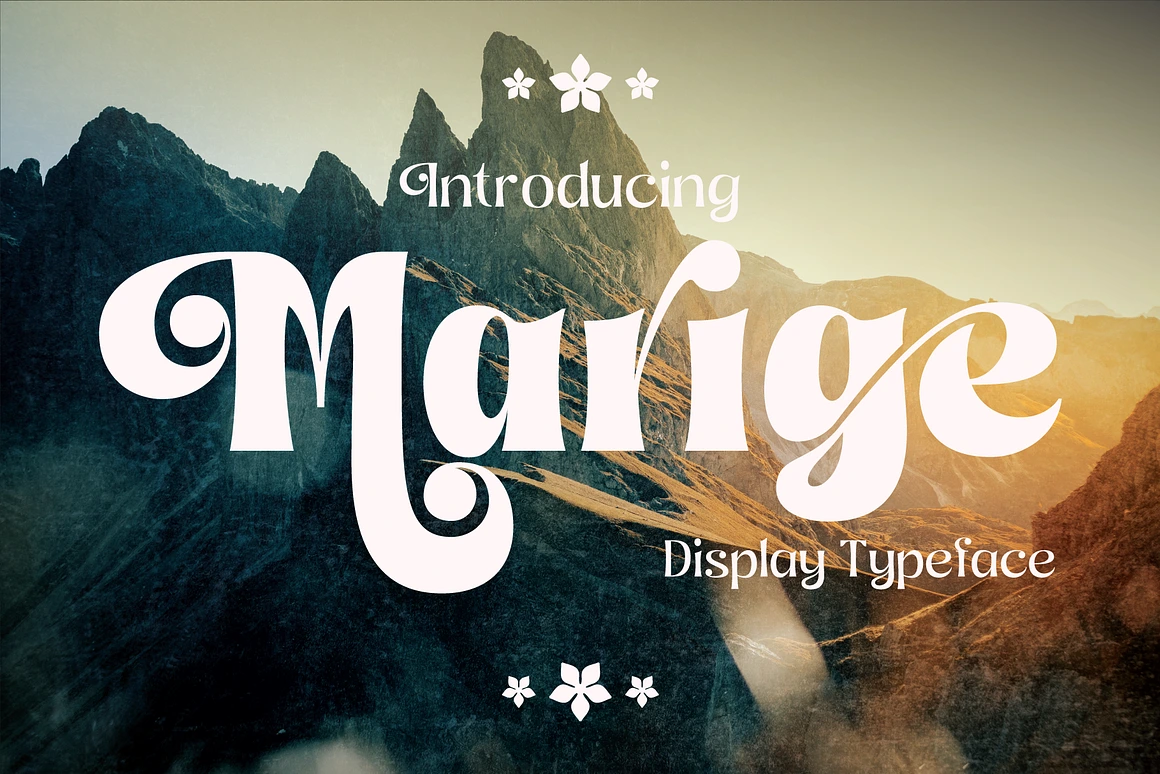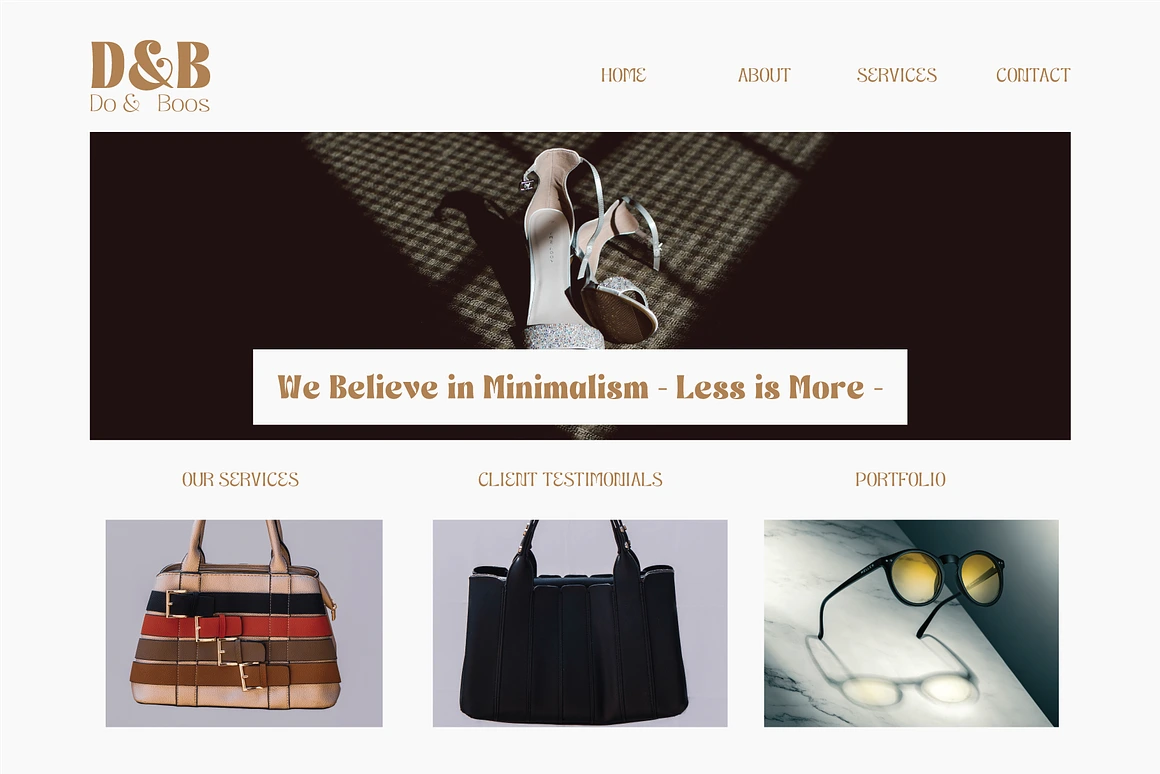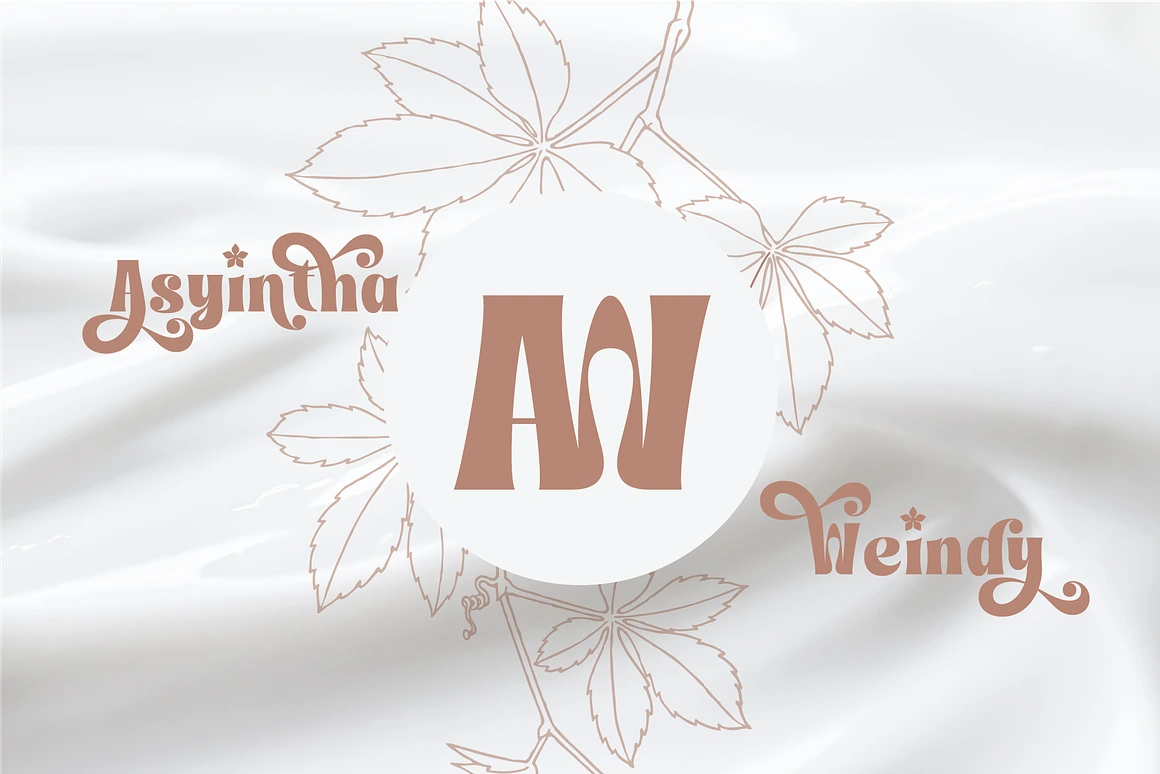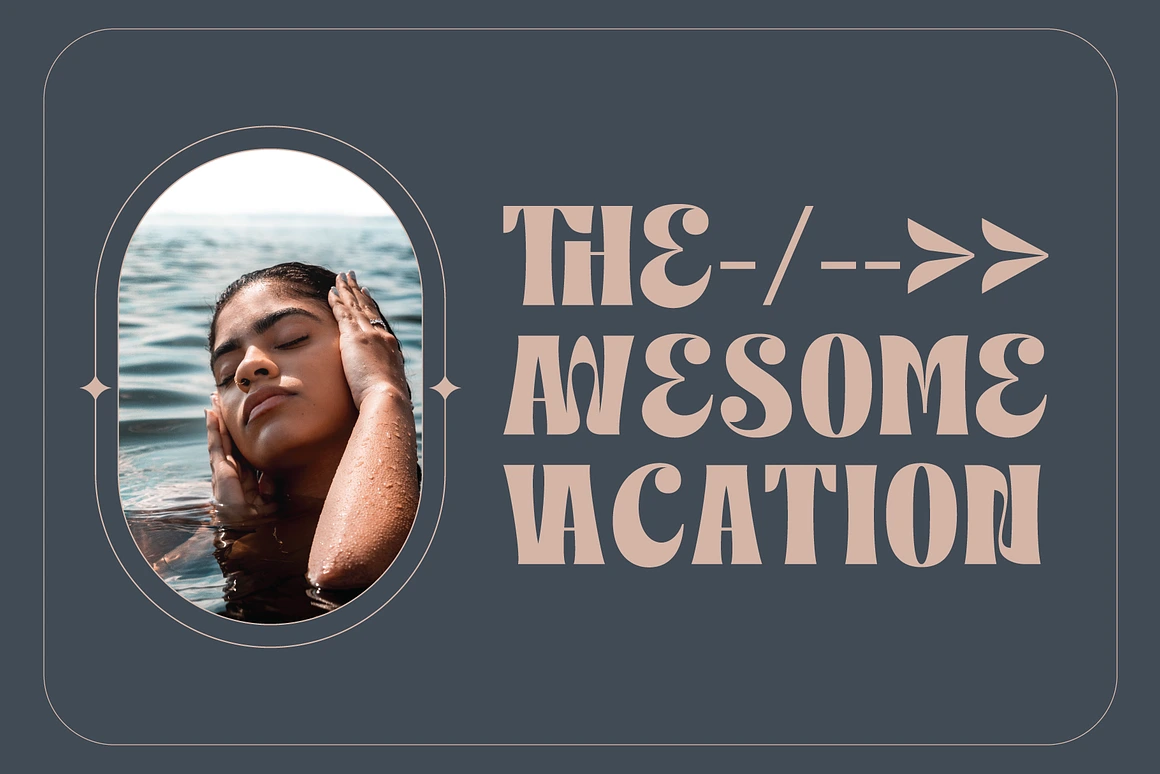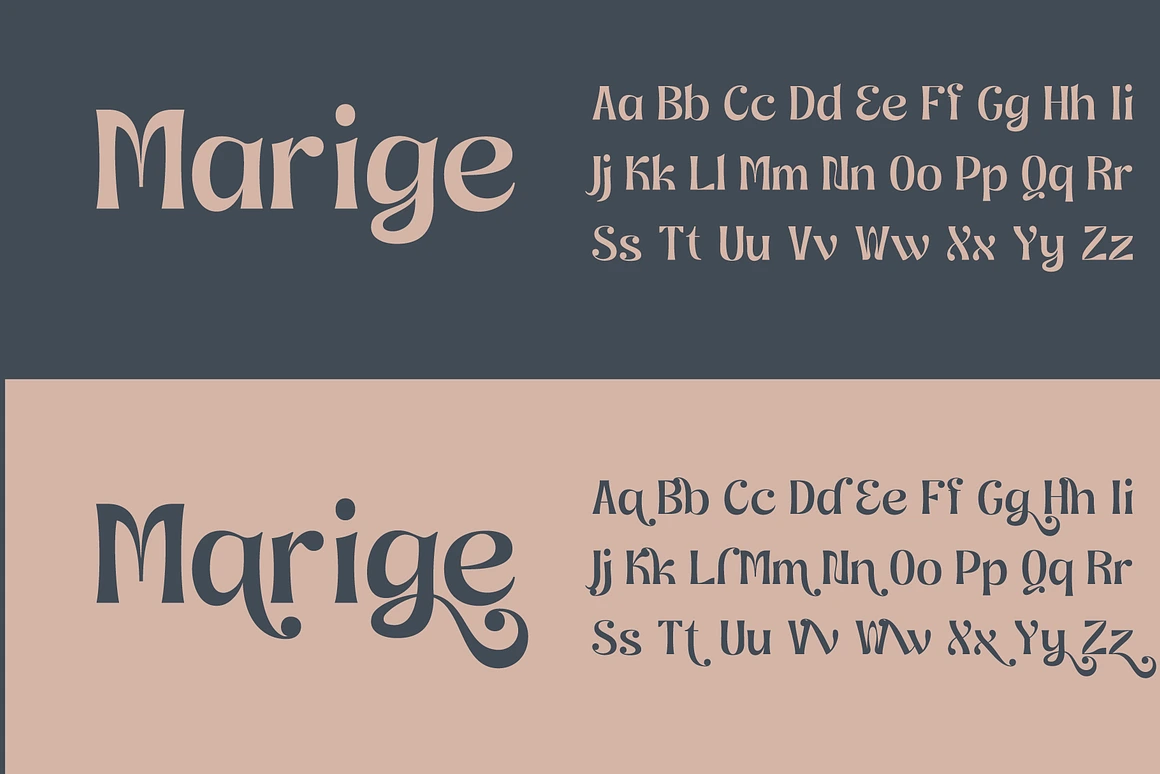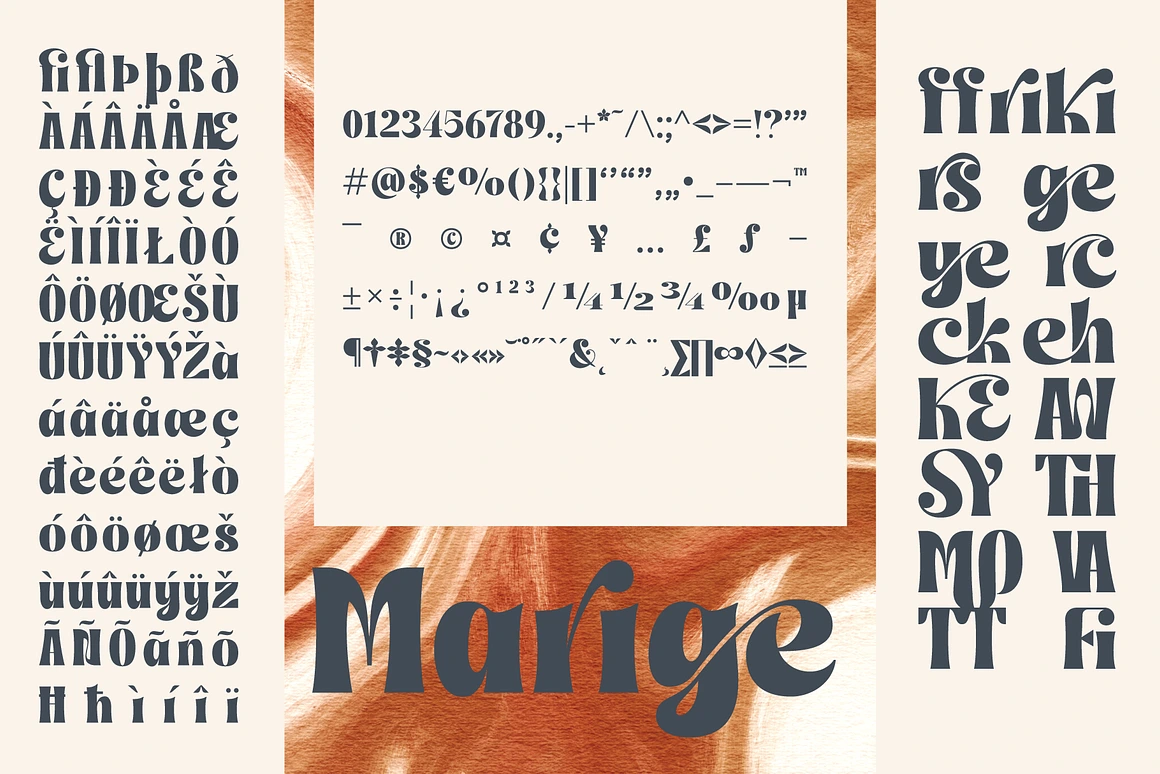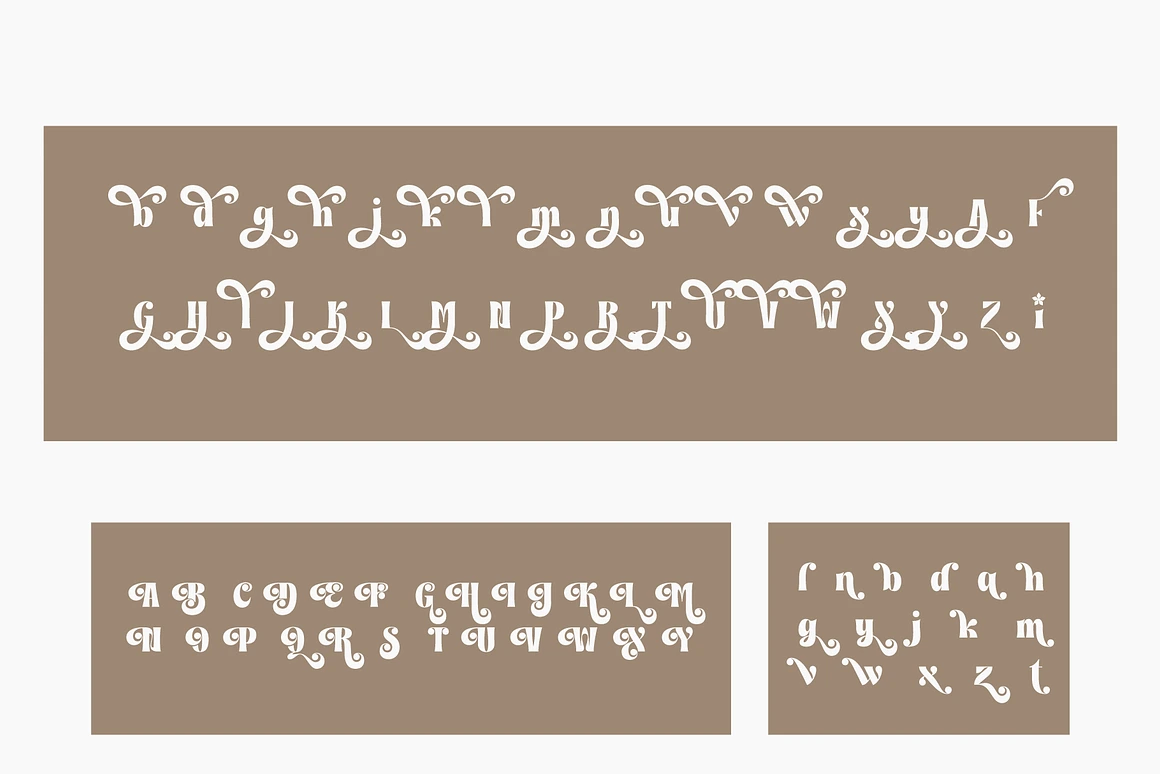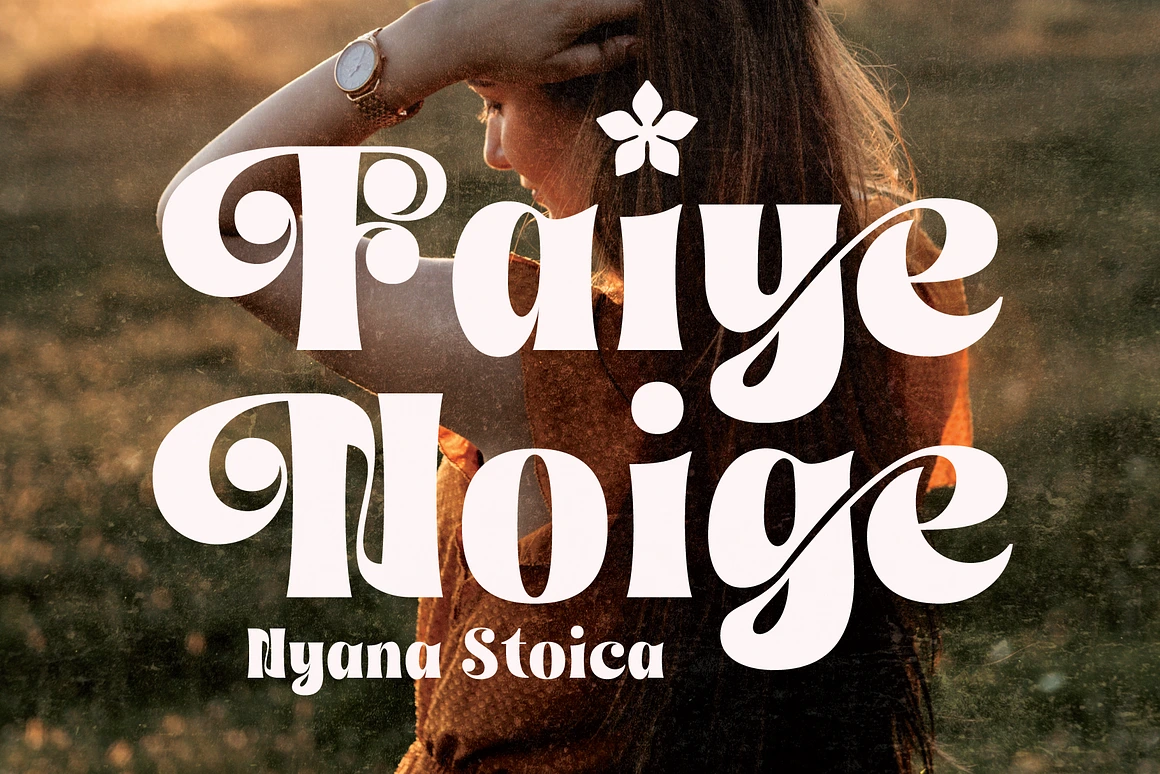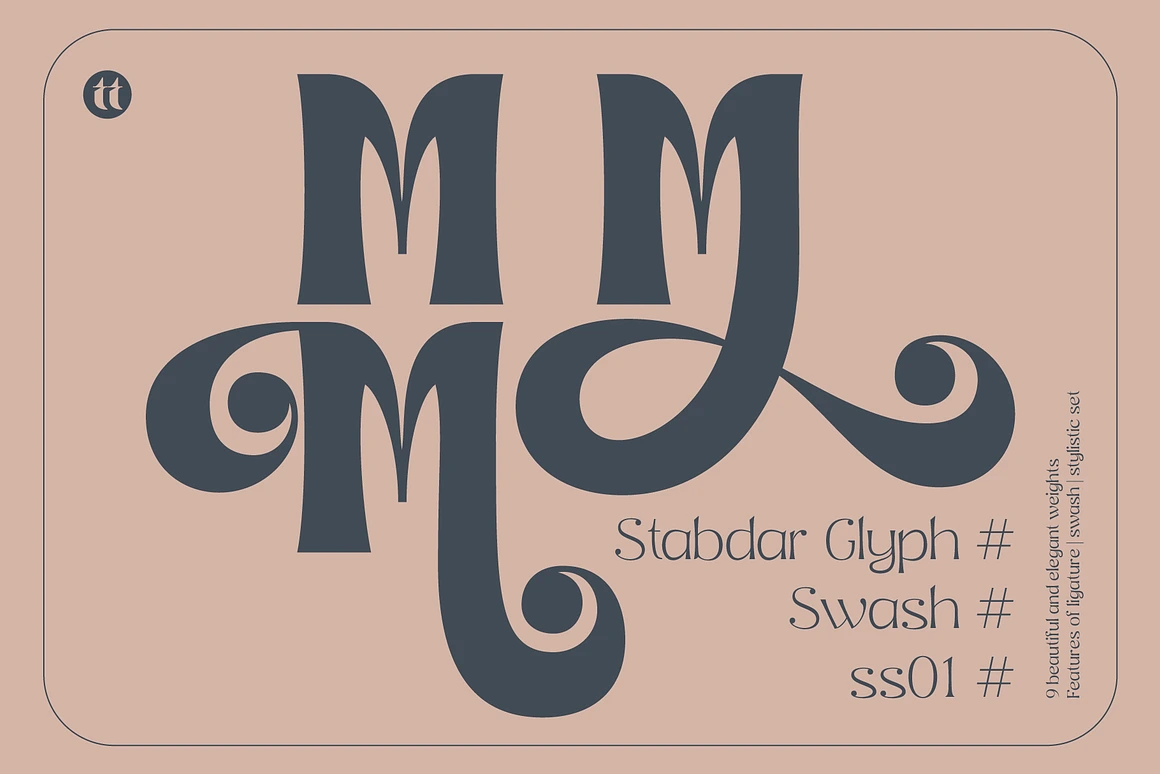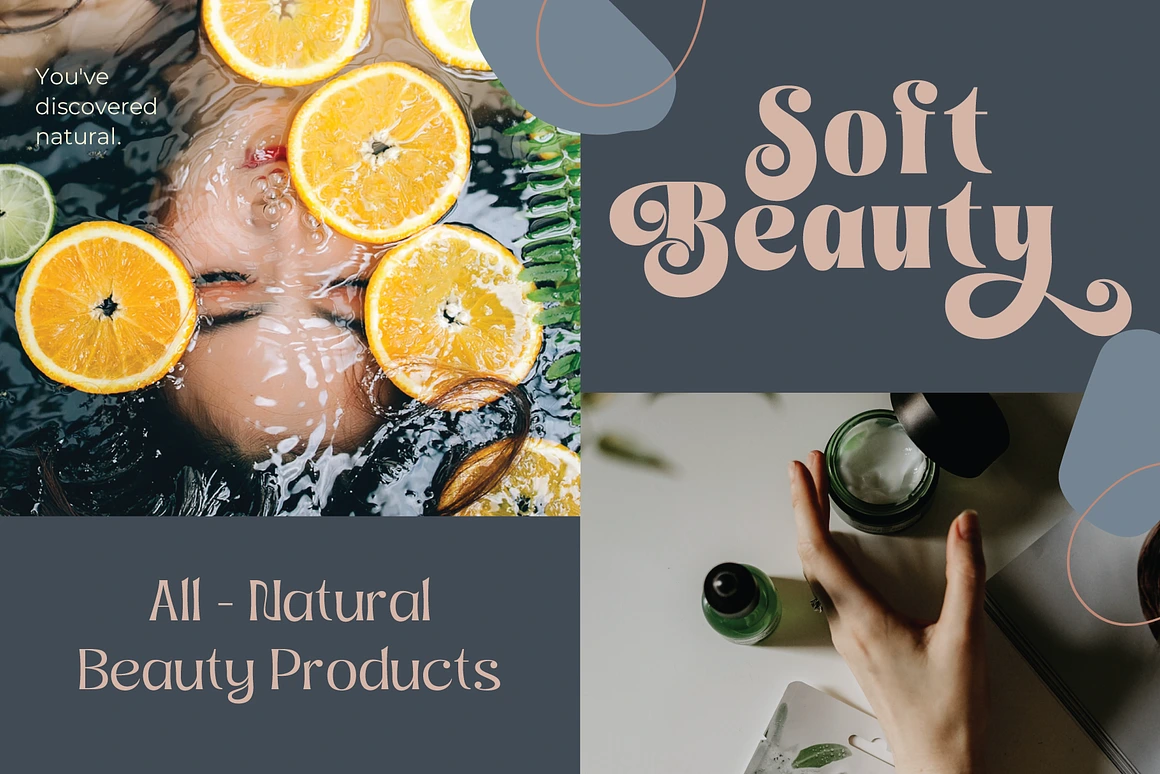
Marige Display Typeface
Marige Complete Family
Marige display typeface is a family of 9 weights that make it easy to create visual typography designs ranging from thin to black. Typeface inspired by the commercial poster style of the 60’s, comes with many alternate characters, they give ligatures. Marige display typeface is perfect for poster headlines, logos, book covers, movie titles, or to add a vintage touch to your creative projects
✔ 9 font weights: Thin, Extra Light, Light, Regular, Medium, Semi Bold, Bold, Extra Bold, Black
✔ Supports OpenType Features (Ligatures, Stylistic Alternates)
Perfect for poster headlines, logos, book covers, movie titles.